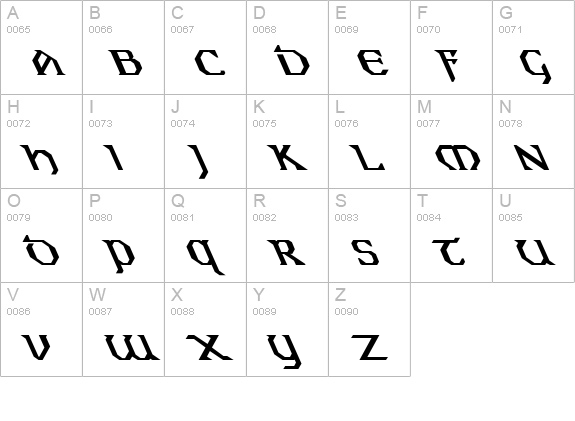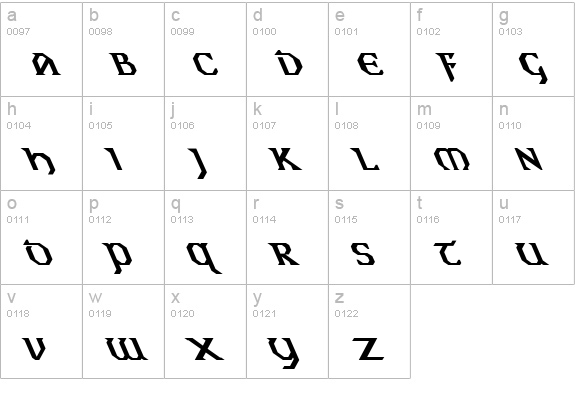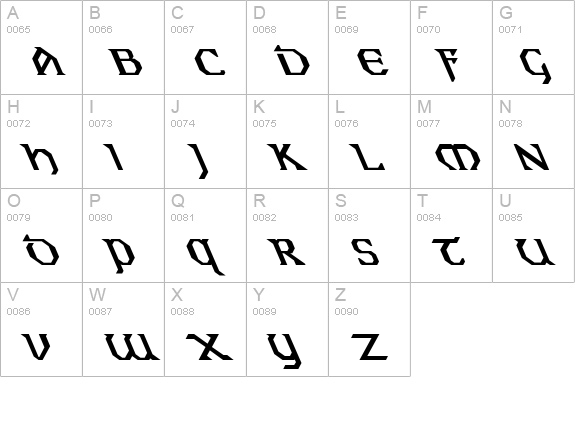
Eire Extreme Lefty Bold is a strong, high-contrast variant in the Eire typeface family \xE2\x80\x94 well suited to headlines, attention-grabbing titles, and strong calls-to-action.
The Eire Extreme Lefty Bold font is a striking and dynamic typeface that exudes a sense of strength and individuality. Its bold and exaggerated letterforms make a bold statement, perfect for grabbing attention and making a strong impact. The extreme slant to the left adds a unique twist to traditional fonts, giving your designs a fresh and edgy look. This font is not only visually impactful but also versatile, suitable for a wide range of design projects including posters, logos, headlines, and more. Whether you're looking to make a bold statement or add a touch of personality to your designs, Eire Extreme Lefty Bold is sure to make a lasting impression. The best part? Eire Extreme Lefty Bold font is available for free download at FontsMarket.com. So go ahead and elevate your design projects with this eye-catching and distinctive typeface without any cost. Download it now and let your creativity run wild with Eire Extreme Lefty Bold font.